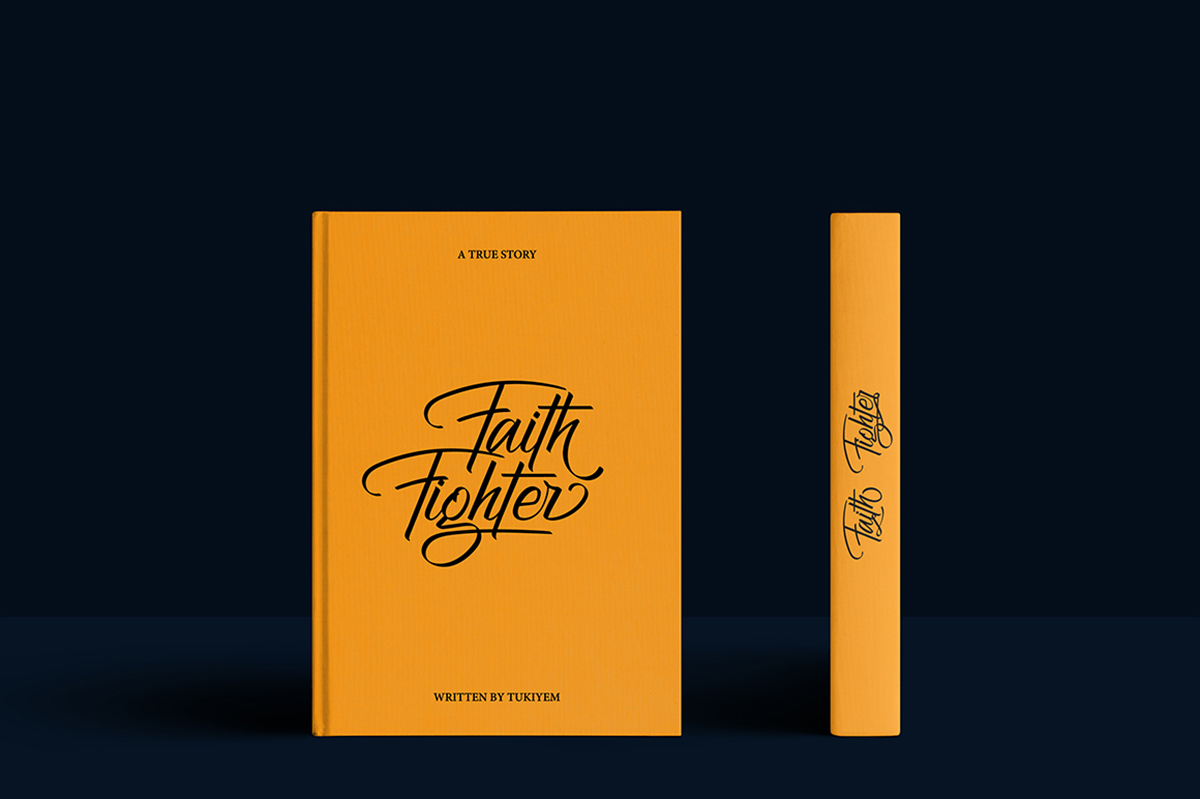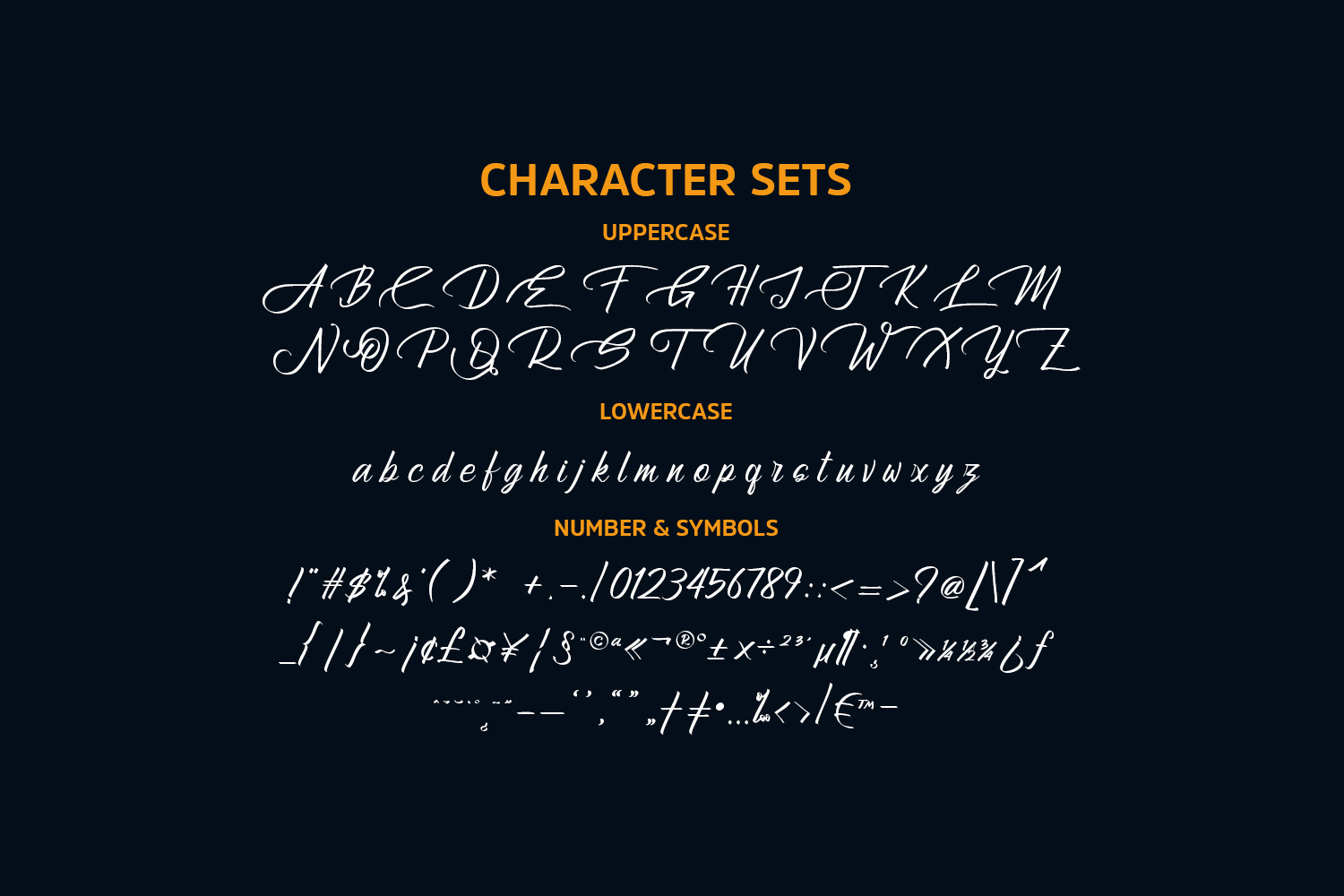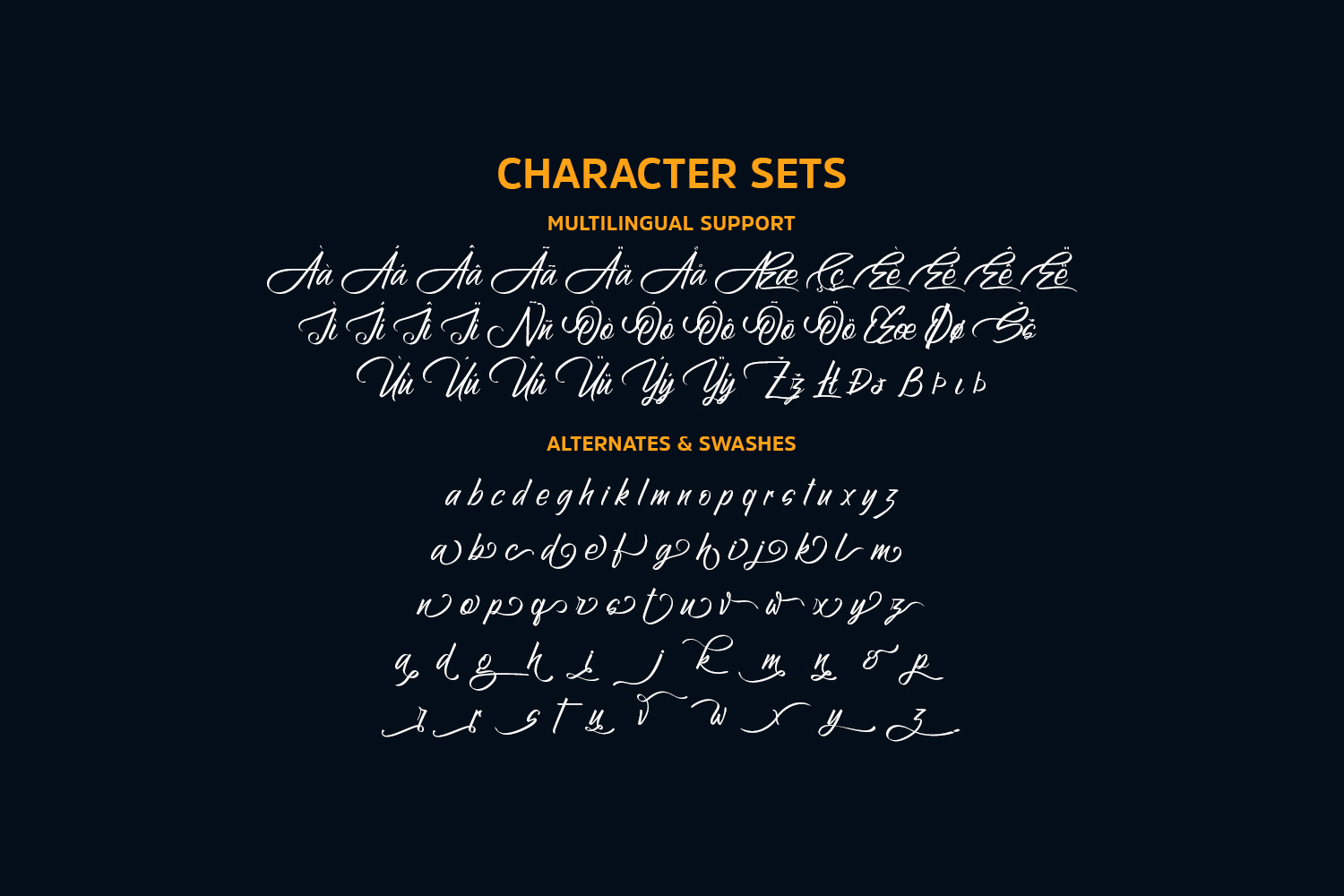
Atziluth Free Font
Atziluth Free Font is a gorgeous script font based on calligraphic style and grace. This is a display font, created directly with a digital brush, and is an accessible and flexible font with tons of alternates and ligatures for branding or logotype purposes. This free typeface was designed by talented Anton Cahyono. If you like it don’t forget to check out the full version.